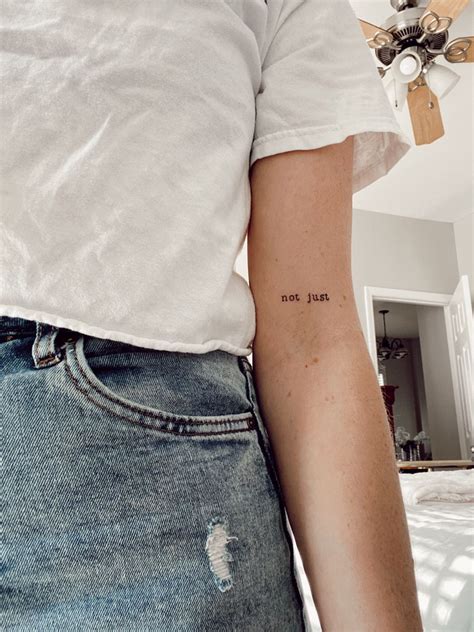
Small Font Tattoo. Fortunately, we have many unique tattoo font styles for men. Web planning to get a lettering tattoo with some cool words and wondering how to choose a tattoo font?
Web find and download the right font for your next tattoo. Web get the best script tattoo fonts at creative market. There you have it, 15 of the best tattoo font options for your next ink sesh. Lettering styles include tribal, traditional sailor, blackletter, fancy,. Web picking a font for your next tattoo is a very important decision. Fortunately, we have many unique tattoo font styles for men. Web planning to get a lettering tattoo with some cool words and wondering how to choose a tattoo font?
There you have it, 15 of the best tattoo font options for your next ink sesh. Web picking a font for your next tattoo is a very important decision. Web find and download the right font for your next tattoo. Web get the best script tattoo fonts at creative market. There you have it, 15 of the best tattoo font options for your next ink sesh. Fortunately, we have many unique tattoo font styles for men. Web planning to get a lettering tattoo with some cool words and wondering how to choose a tattoo font? Lettering styles include tribal, traditional sailor, blackletter, fancy,.